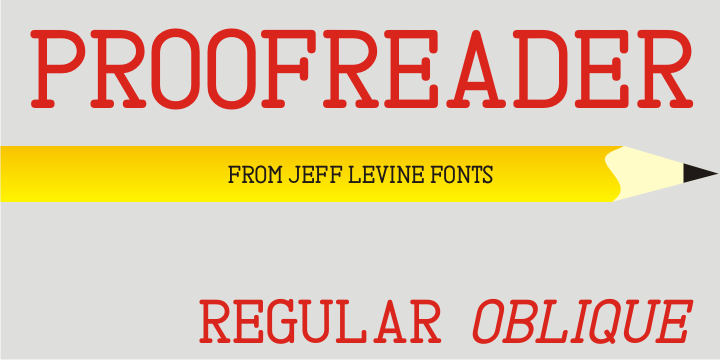
Proofreader JNL and its companion oblique version give a serif treatment to the rounded-end, architectural -style lettering of Rendering JNL.
Proofreader JNL
Proofreader Oblique JNL